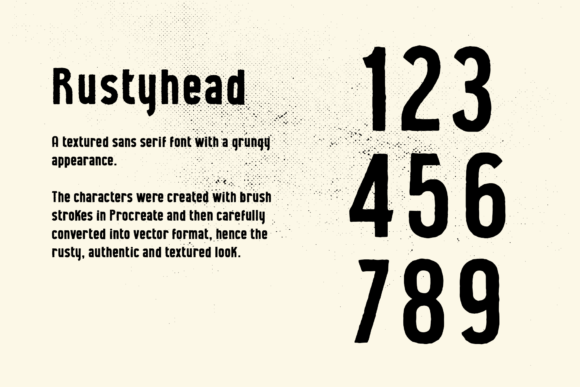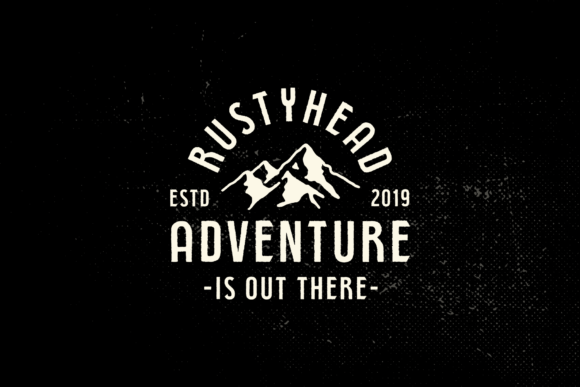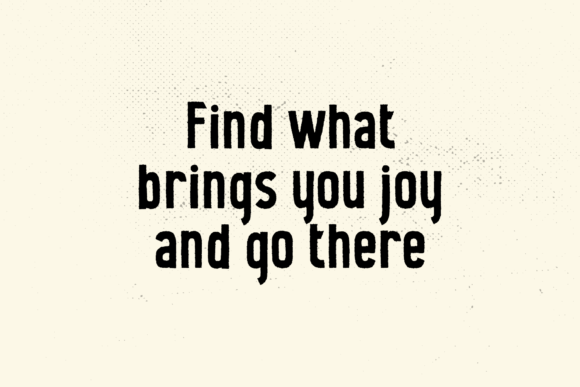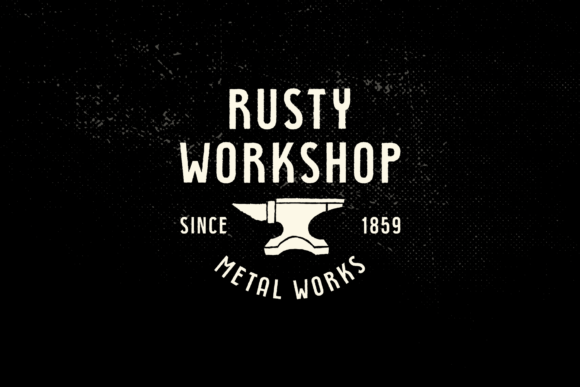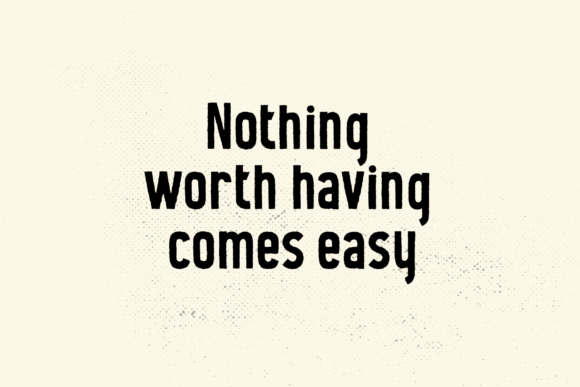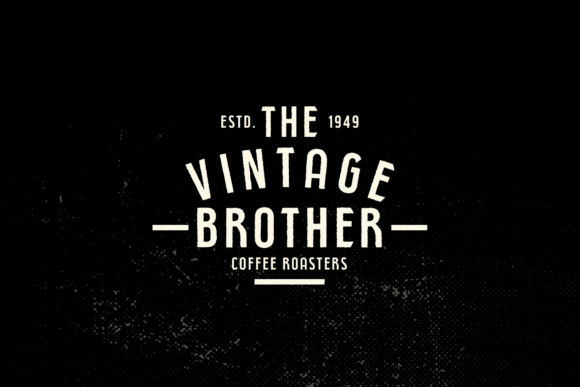
Introduction to Rustyhead Font
Rustyhead is a smart and retro display font with an original style.
Get inspired by its rustic charm .
Key Features of Rustyhead Font
Why Choose Rustyhead Font?